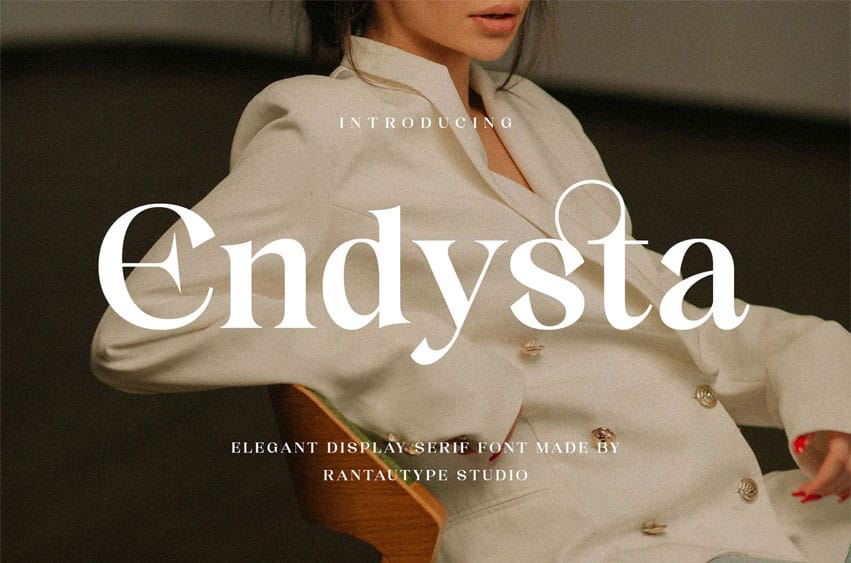
Endysta Font Modern serif font embraces grace and sophistication. Endysta comes with a delicate shape and is well-balanced to take your design project to the next level.
Endysta is a perfect choice for any creative endeavor, such as logos, lifestyle design, such as logotypes, advertisements, watermarks on photography, stationery, branding projects, display and magazines, invitations, corporate brand, product design, labels, business projects, and many other projects with a Luxury touch.